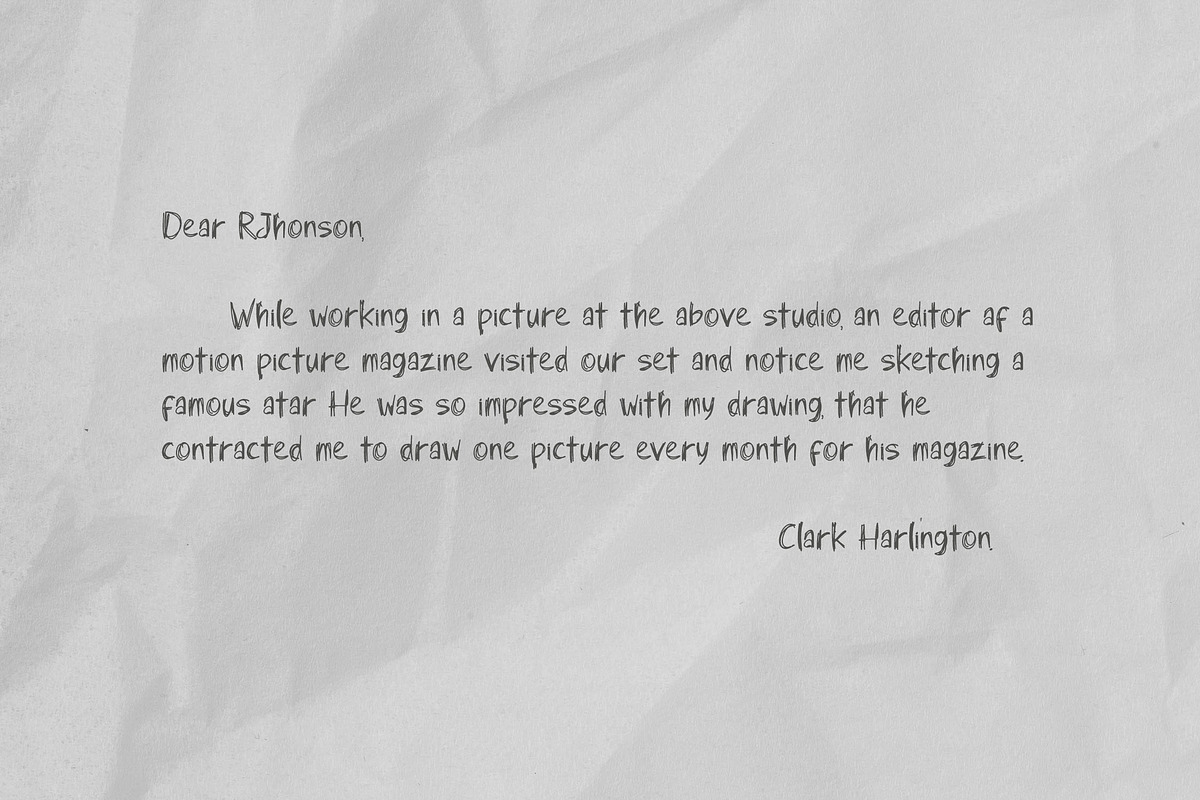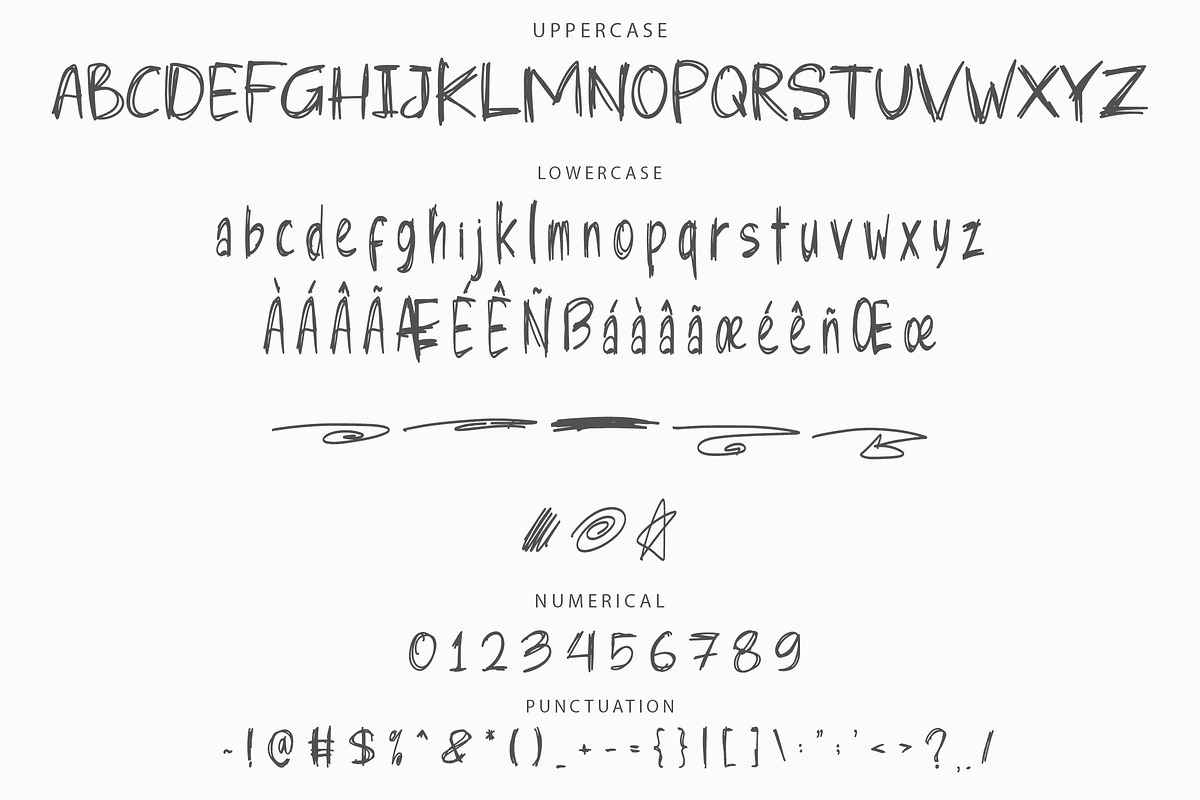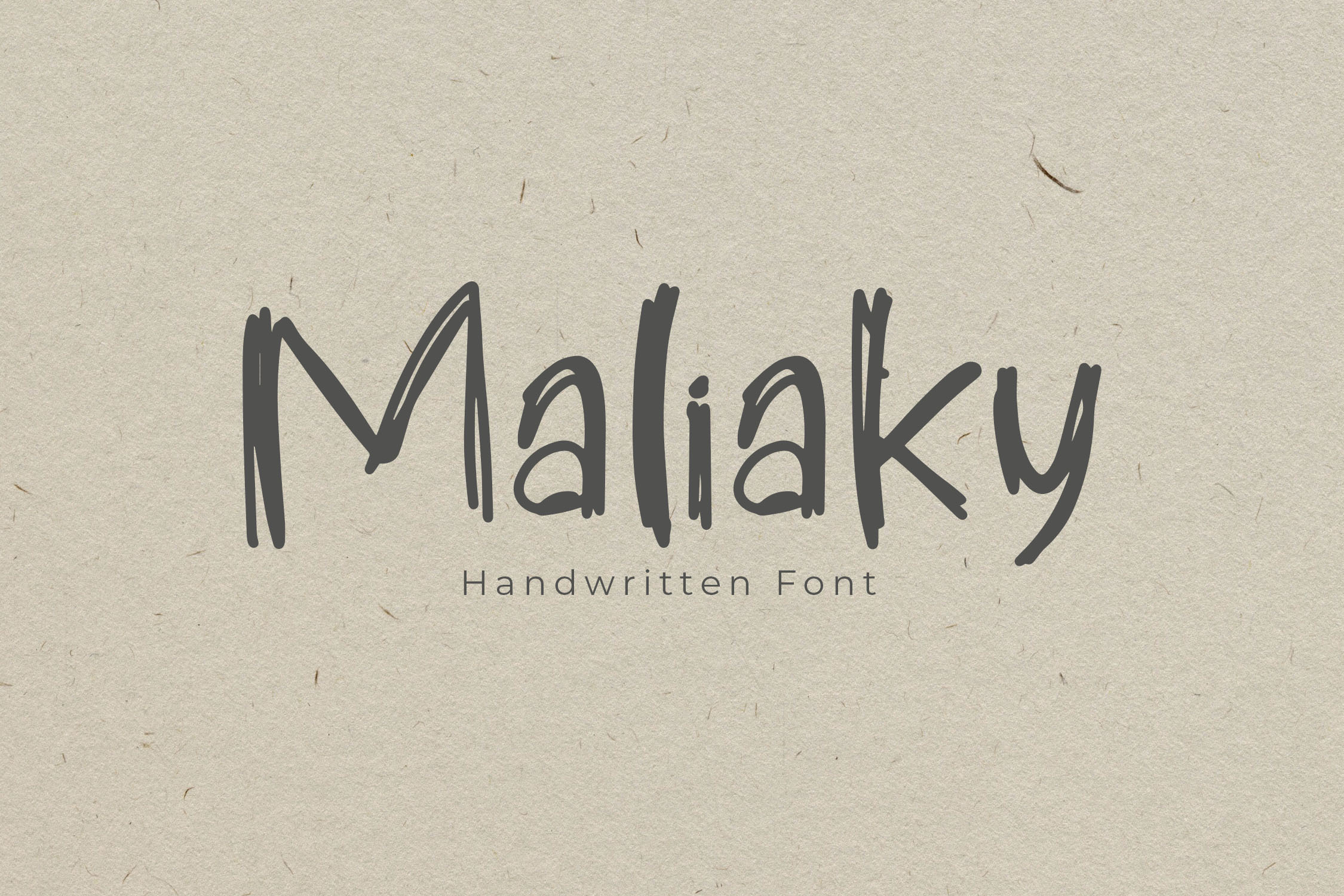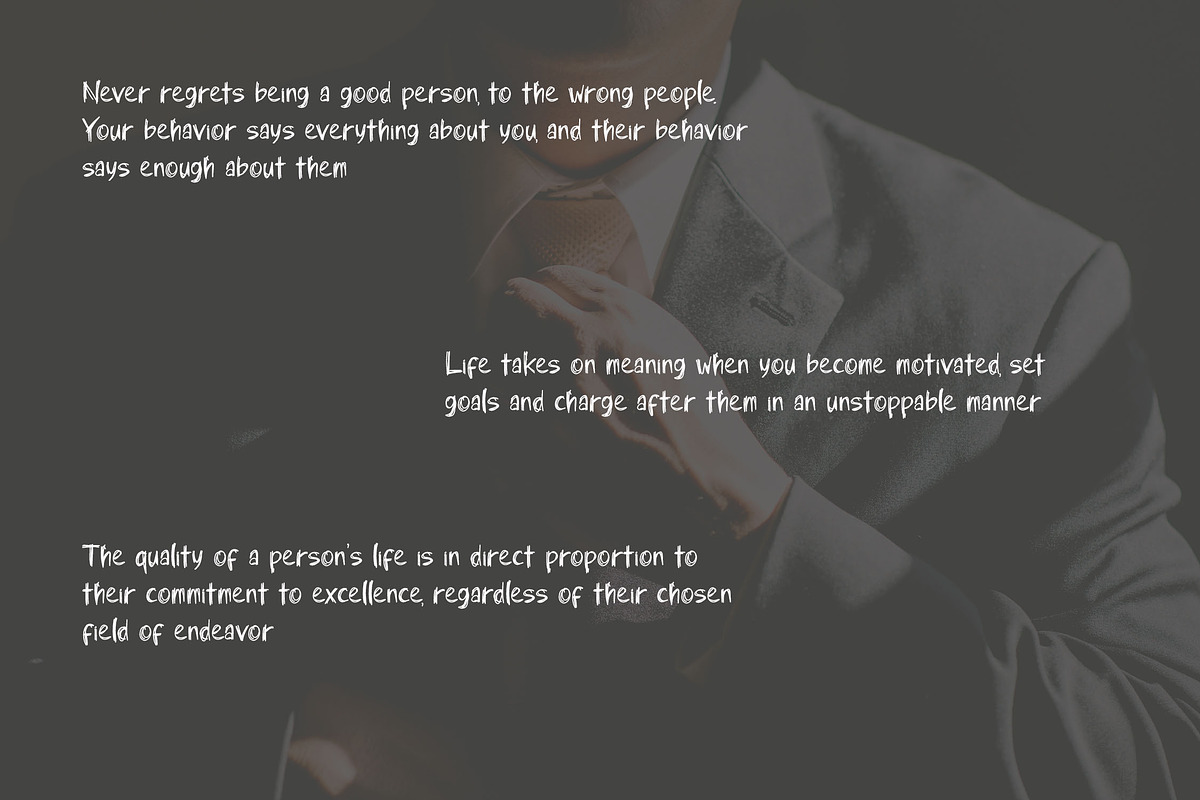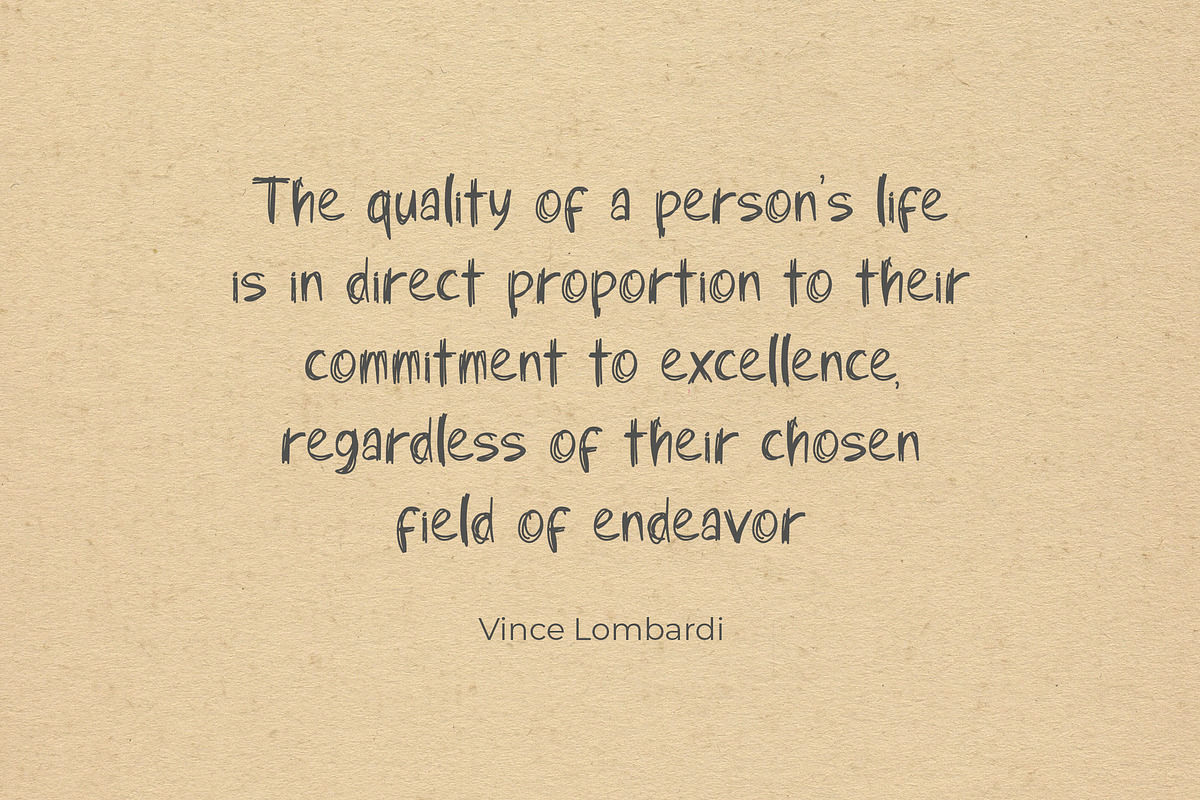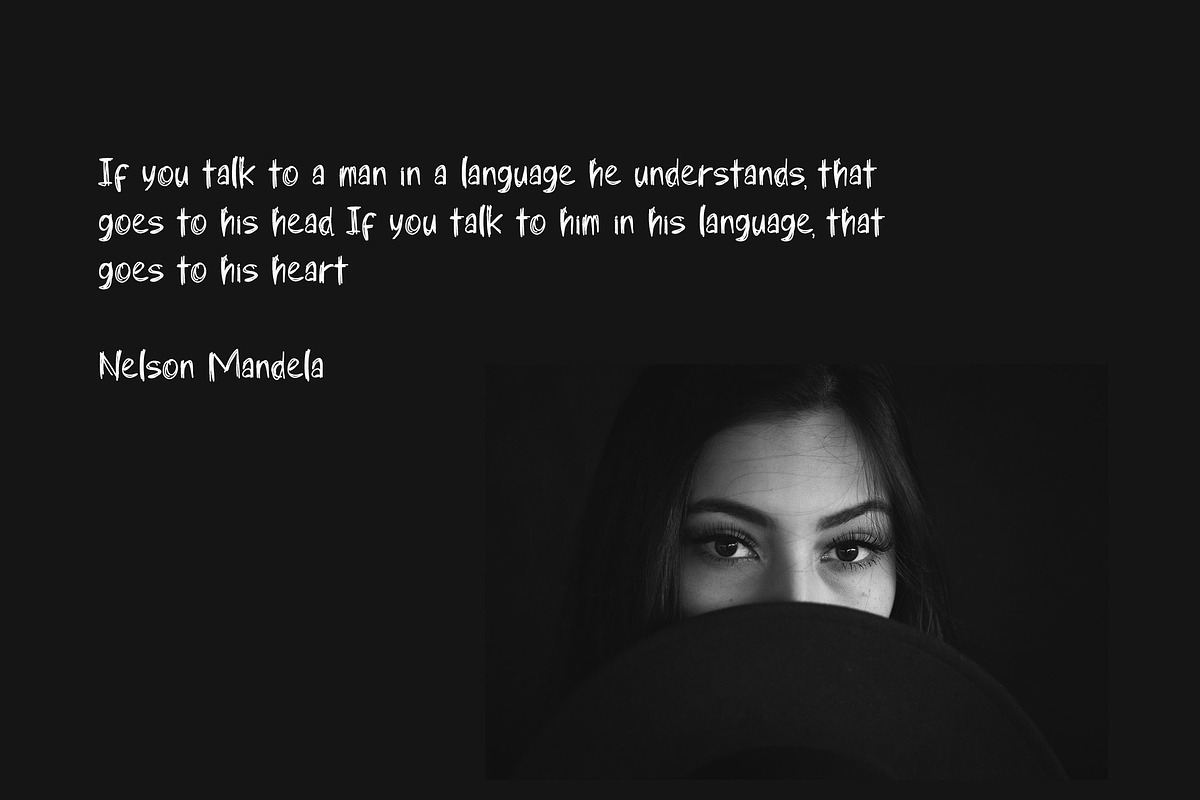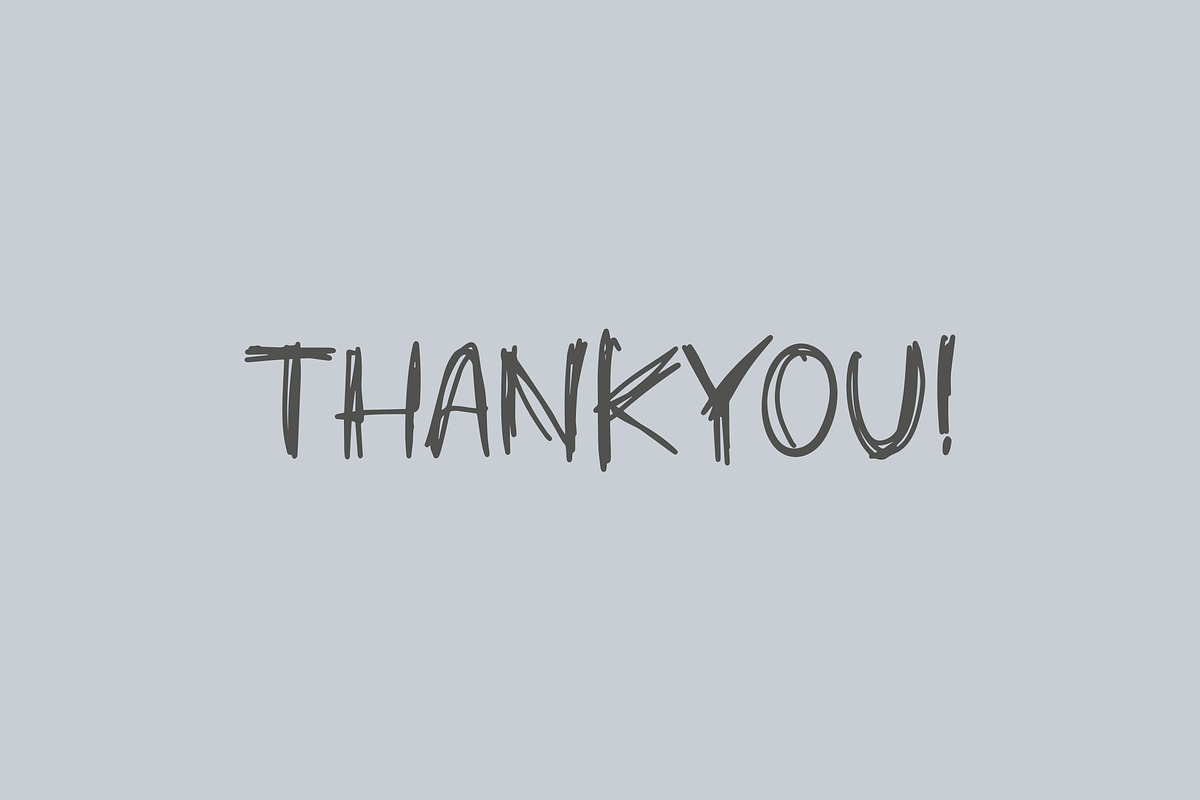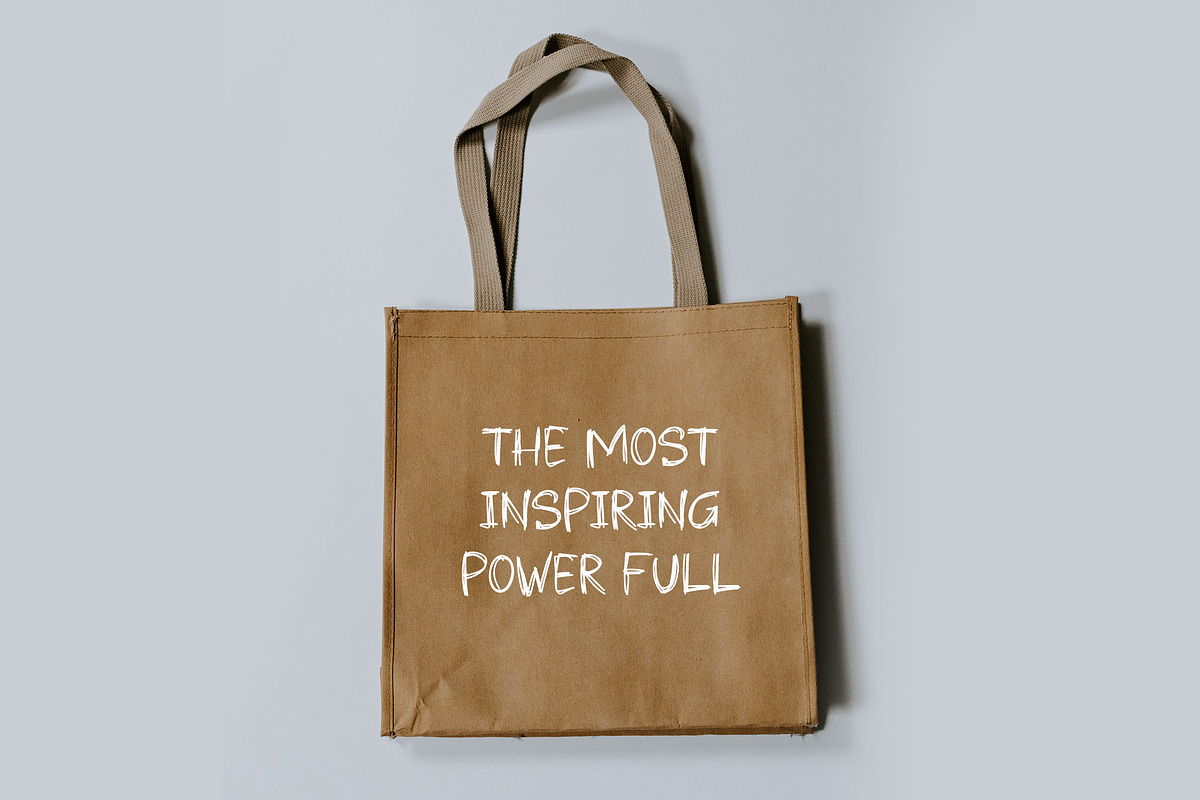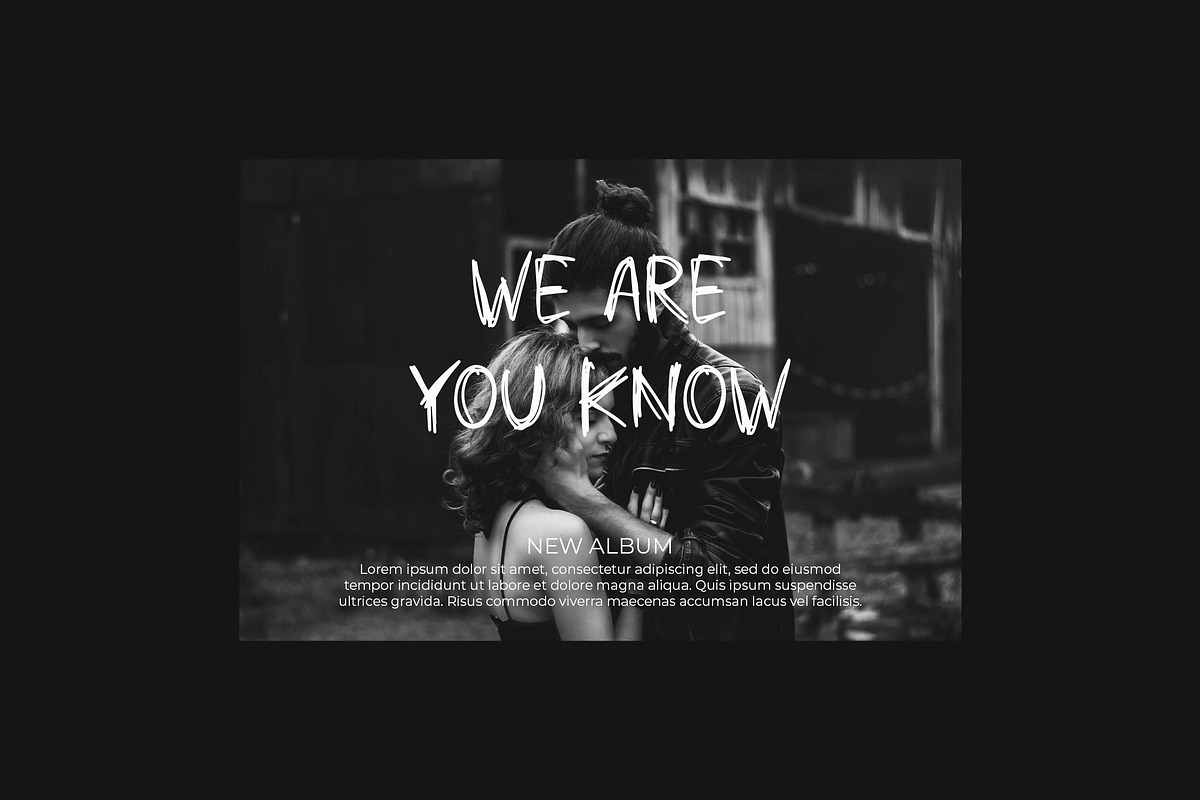
Maliaky Handwriting Font
Maliaky - Rough Brush Handwriting Font
Maliaky is a bold handwriting font with a rough brush style, designed to give your projects an authentic and edgy look. Its unique and dynamic letterforms add character to any design, making it perfect for enhancing product visuals and creating eye-catching graphics. Whether for branding, packaging, or social media content, Maliaky offers a creative and impactful touch to your work.
- Ligatures for smooth letter transitions
- Stylistic alternates for customization
- Swashes to enhance the typography
- Multilingual support for diverse language needs